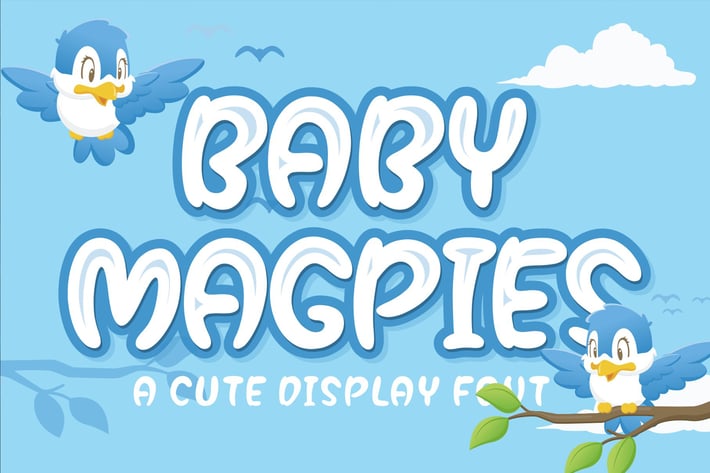
Baby Magpies - Cute Display Font
Baby Magpies is an adorable and whimsical display font designed to add a playful charm to your projects. Inspired by the cuteness of young magpies, this font features soft curves and friendly letterforms that evoke a sense of innocence and joy. Perfect for children's books, nursery decor, party invitations, and crafting projects, Baby Magpies brings a delightful touch to any design. Its versatility allows you to create captivating headlines, cute logos, and endearing graphics that will captivate both young and young-at-heart audiences. Embrace the sweetness of Baby Magpies and watch your creations come to life with a touch of enchantment and delight.